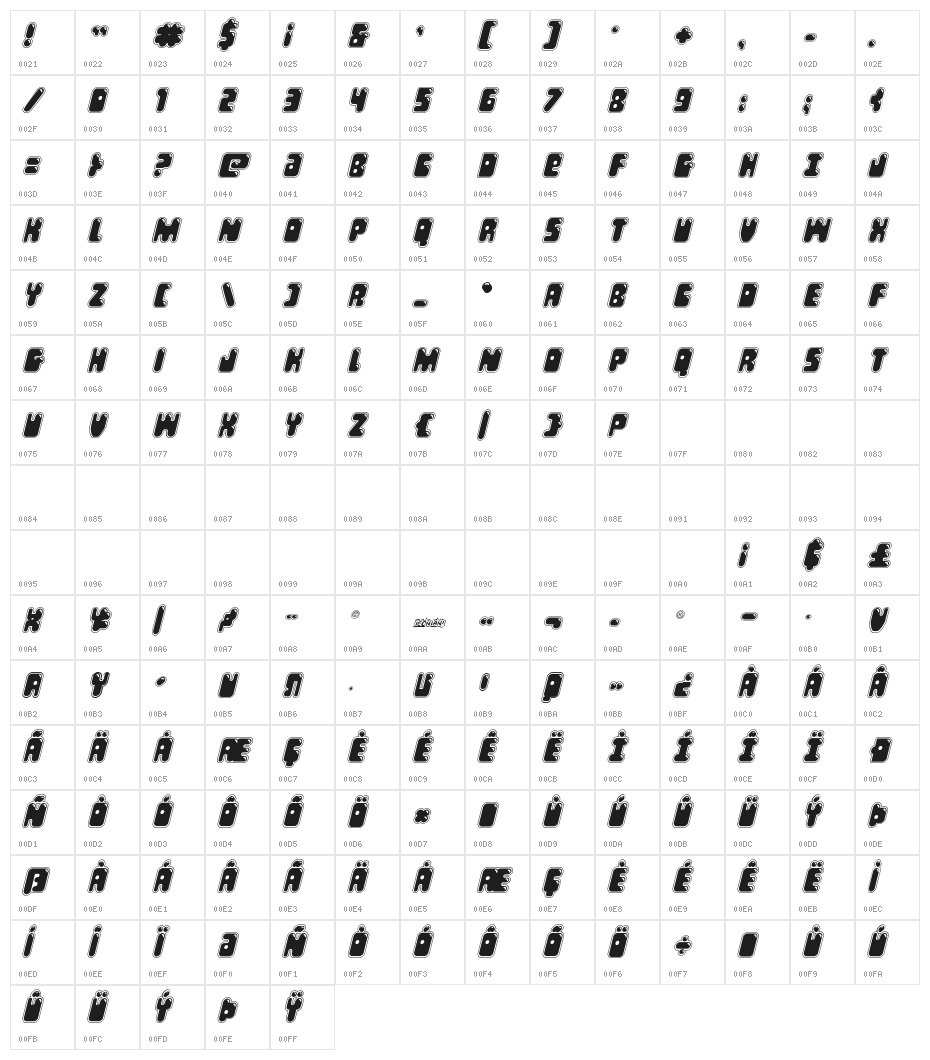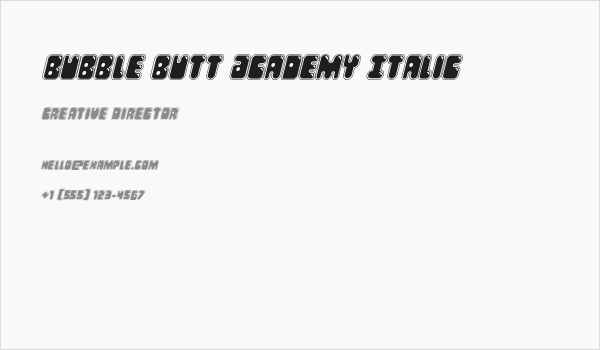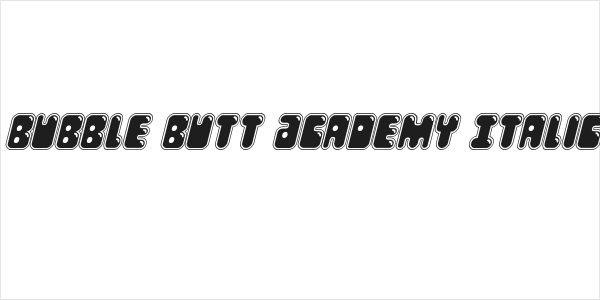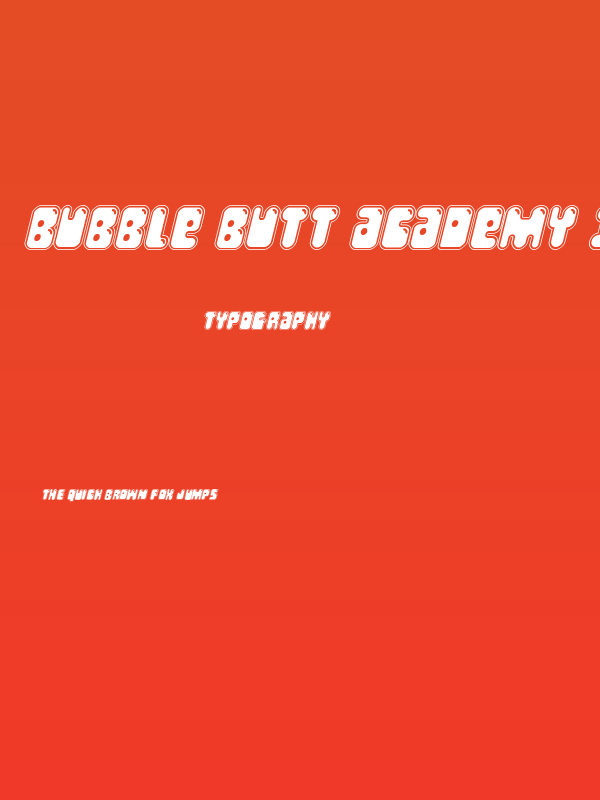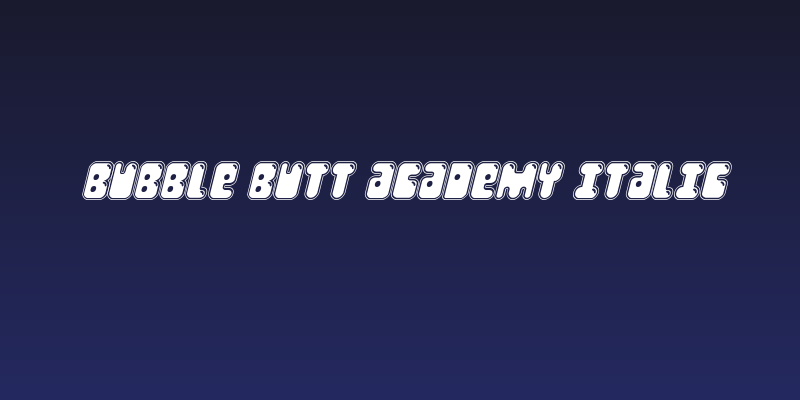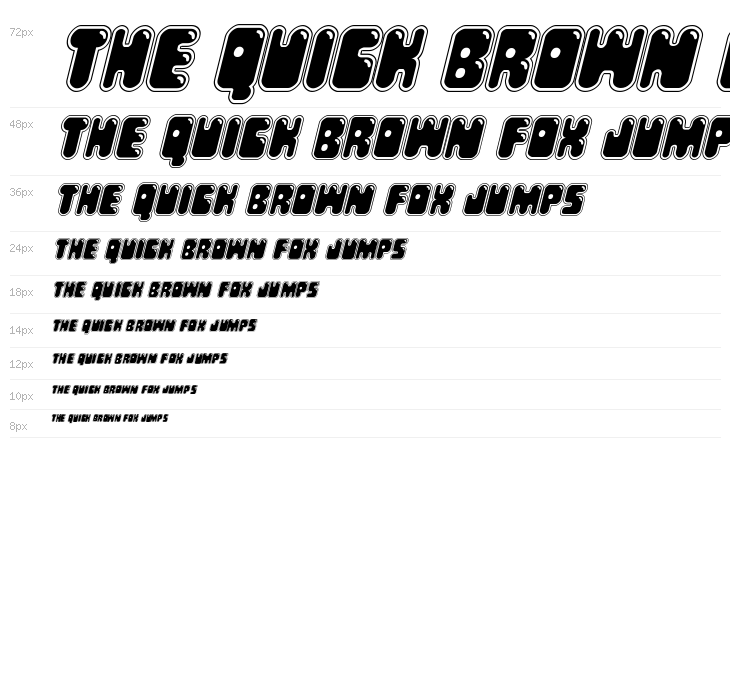
Bubble Butt Academy Italic Font
Bubble Butt Academy Italic Description
This playful and bold font features a bubbly, rounded design with a thick outline that gives it a three-dimensional appearance. The characters are heavily stylized, with a consistent, smooth curvature that adds a sense of fun and whimsy. The italic slant enhances its dynamic and lively feel, making it stand out in any design. The font includes both uppercase and lowercase letters, numbers, and a variety of special characters, all maintaining the same bold and rounded aesthetic. Its unique style is perfect for projects that require a touch of creativity and boldness.
Overall StylePlayful, Fun, Whimsical
Proposed ProjectsIdeal for children's book covers, playful branding, party invitations, and eye-catching posters.